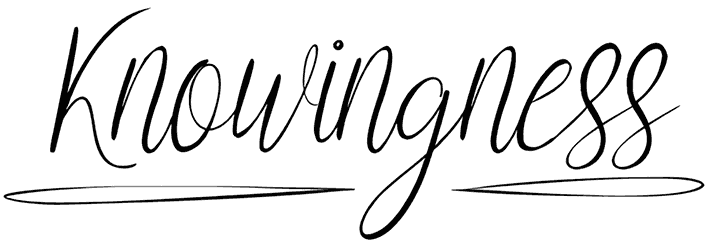
Knowingness Font
Knowledgeness is a script font for any project because of its artistic design and nature, even though it doesn’t have any numbers or letters. It doesn’t matter if you’re designing logos, website headers, posters, or greeting cards; this handwritten font will look great in any application. To add an exclusive touch to your designs, the design features a hand-lettering font that gives it an elegant look.